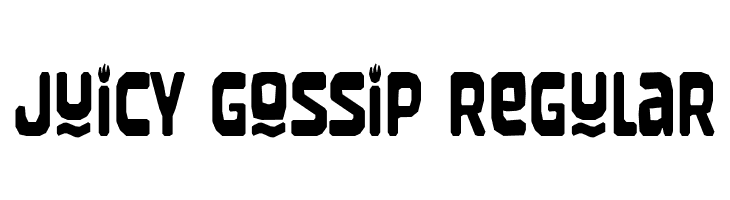
A bold, decorative font with a playful, chunky style.
A bold, playful font with a chunky, irregular design and retro flair.
A bold, playful font with geometric shapes and a chunky style.
A bold, playful font with rounded edges and a chunky, retro style.
A bold, playful font with chunky, dynamic characters.
A bold, playful font with rounded, chunky letterforms and minimal contrast.
A bold, chunky font with a playful, retro aesthetic and thick, uniform strokes.
A bold, chunky font with a playful, handcrafted appearance.
A bold, playful typeface with a chunky, whimsical style.
A bold, chunky font with playful, irregular shapes and rounded edges.